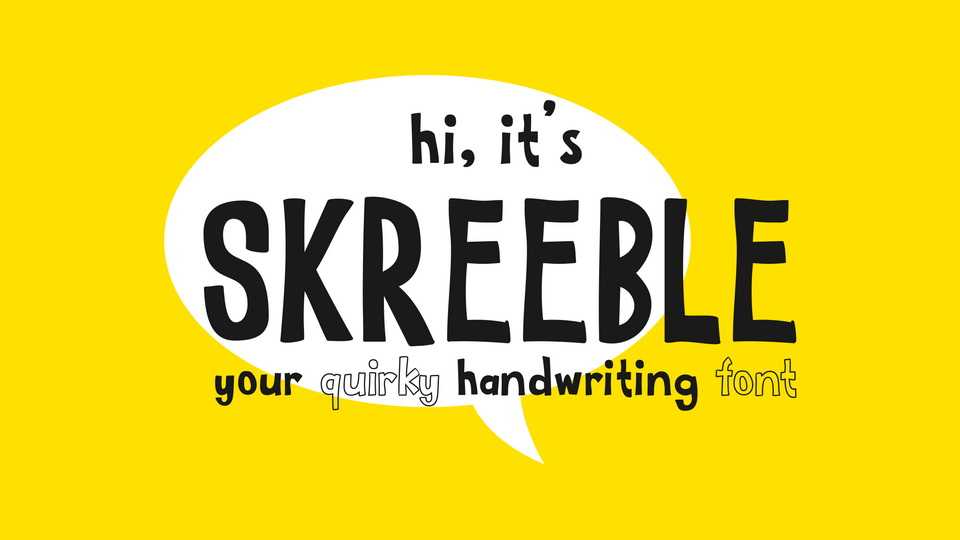
Download Skreeble font, a fun sans serif typeface with quirky shapes. Skreeble is perfect to be used as a headline post, display font, and also as body text in children book, websites, and infographics.
Designer: Alexatype